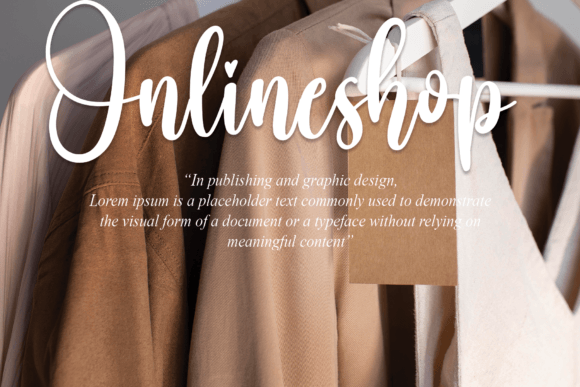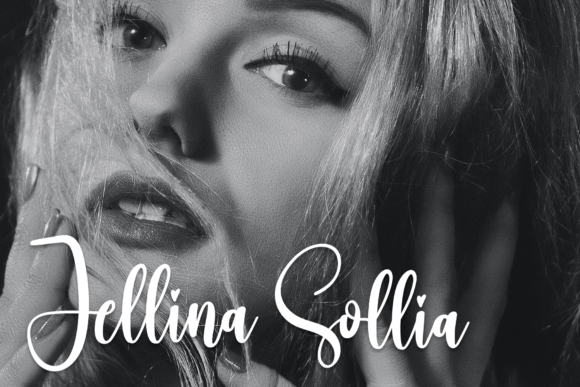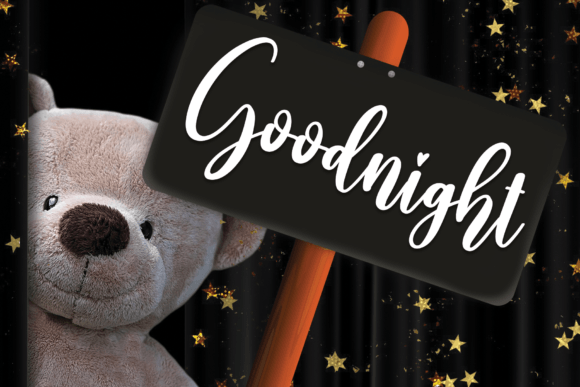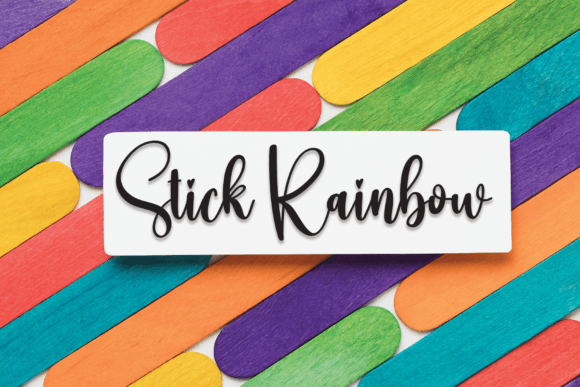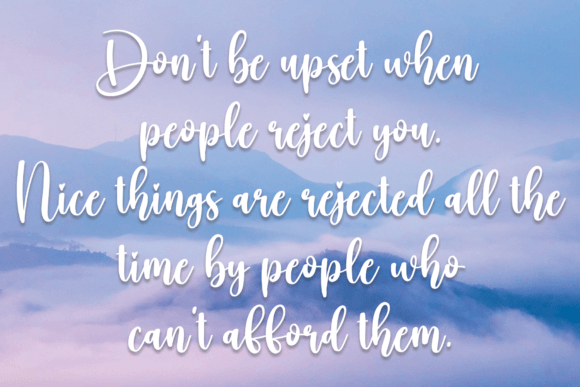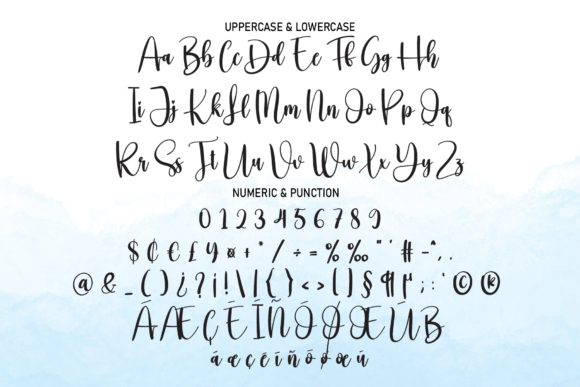
Introducing Blubbery Font: The Perfect Handwritten Style for Your Creative Projects
Are you a designer or crafter looking for a unique and stylish font to elevate your creative projects? Look no further than Blubbery Font! Blubbery’s latest style letters are perfect for a wide range of applications, from wall displays and wedding invitations to social media post logos, advertisements, product packaging, and more.
What is Blubbery Font?
Blubbery Font is a beautiful, handwritten font that is designed to add a touch of elegance and sophistication to your projects. With its flowing lines and delicate curves, this font is perfect for creating visually stunning designs that are sure to capture attention.
Uses for Blubbery Font
Blubbery’s latest style letters are versatile and can be used for a variety of creative projects, including:
- Wall displays: Add a touch of personality to your wall art with Blubbery Font.
- Wedding invitations: Make your wedding invitations truly special with this beautiful, handwritten font.
- Social media post logos: Stand out on social media with eye-catching logos created using Blubbery Font.
- Advertisements: Grab attention with bold and stylish text that showcases your brand’s personality.
- Product packaging: Add a touch of elegance to your product packaging with Blubbery Font.
- Product designs: Create stunning product designs that showcase your brand’s style and personality.
- Labels: Create custom labels that are both functional and visually appealing.
- Photography: Add a touch of sophistication to your photography with Blubbery Font watermarks.
- Invitations: Create beautiful, one-of-a-kind invitations for any occasion.
- Stationery: Elevate your stationery with elegant and stylish text.
Why Choose Blubbery Font?
So why choose Blubbery Font for your creative projects? Here are just a few reasons:
- Unique and stylish: Blubbery Font is a one-of-a-kind font that will set your projects apart from the rest.
- Handwritten charm: This font has a beautiful, handwritten quality that adds a touch of personality to your designs.
- Versatile: Blubbery Font can be used for a wide range of creative projects, from digital designs to print materials.
- Elegant and sophisticated: This font is perfect for creating designs that are both elegant and sophisticated.
Tips for Using Blubbery Font
Here are a few tips for getting the most out of Blubbery Font:
- Experiment with different sizes: Blubbery Font looks great in a variety of sizes, from large and bold to small and delicate.
- Pair with other fonts: Try pairing Blubbery Font with other fonts to create a unique and visually appealing design.
- Use for headlines and titles: Blubbery Font is perfect for creating eye-catching headlines and titles.
- Add a personal touch: Use Blubbery Font to add a personal touch to your designs and make them more relatable.